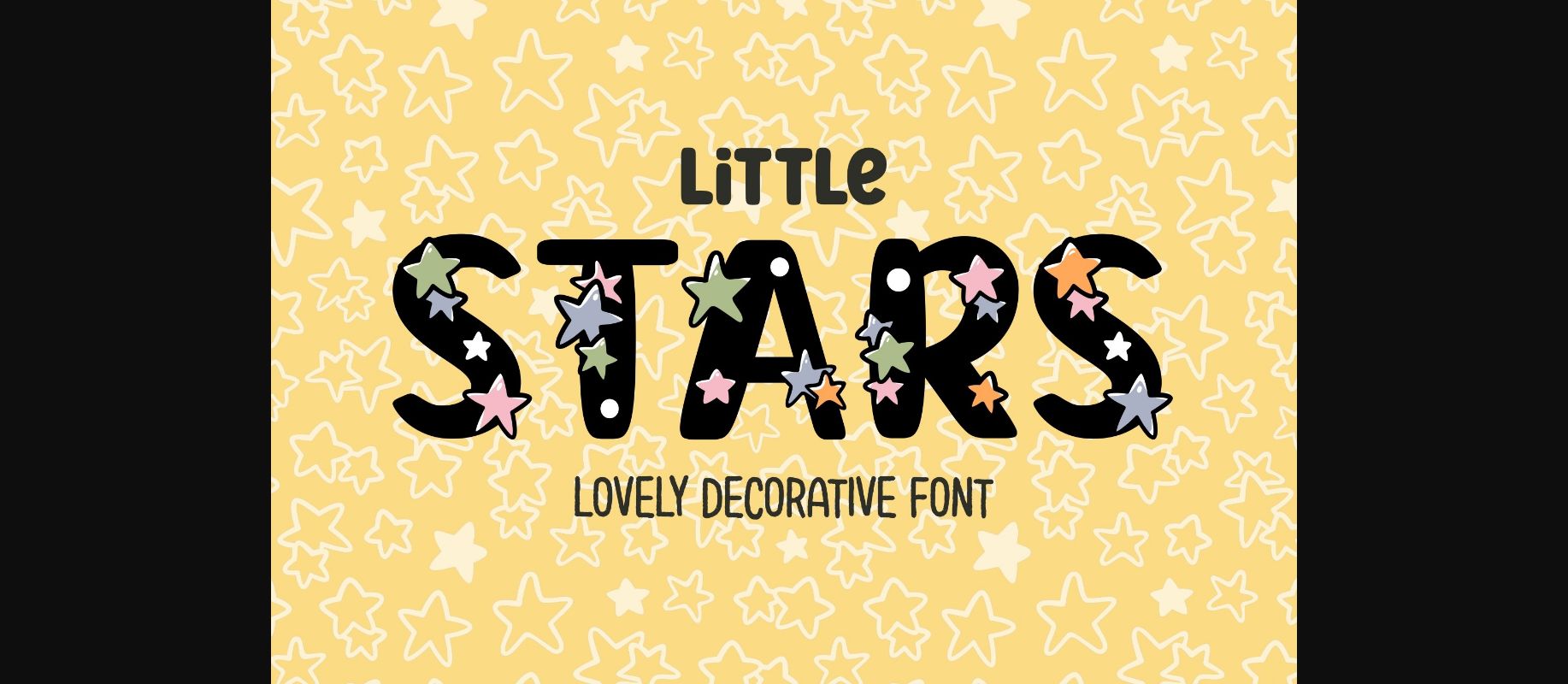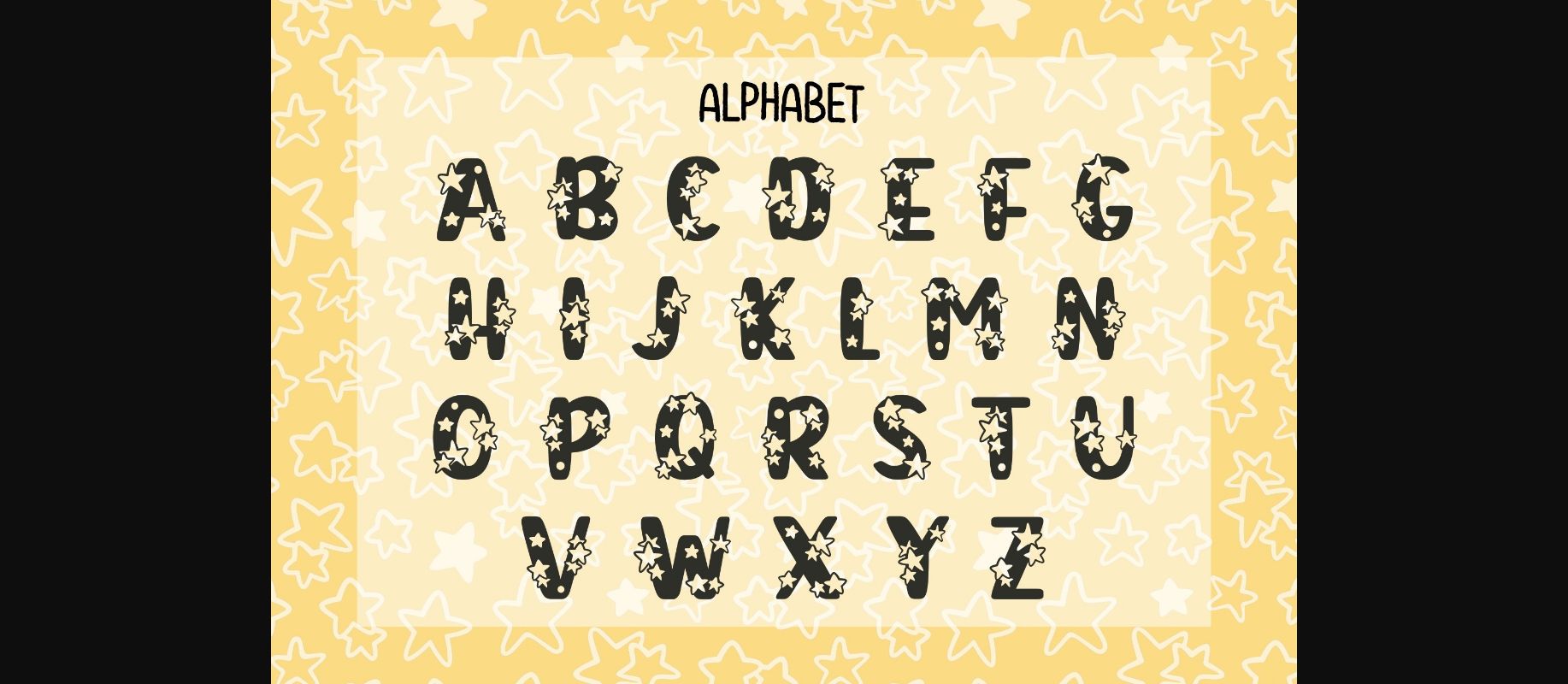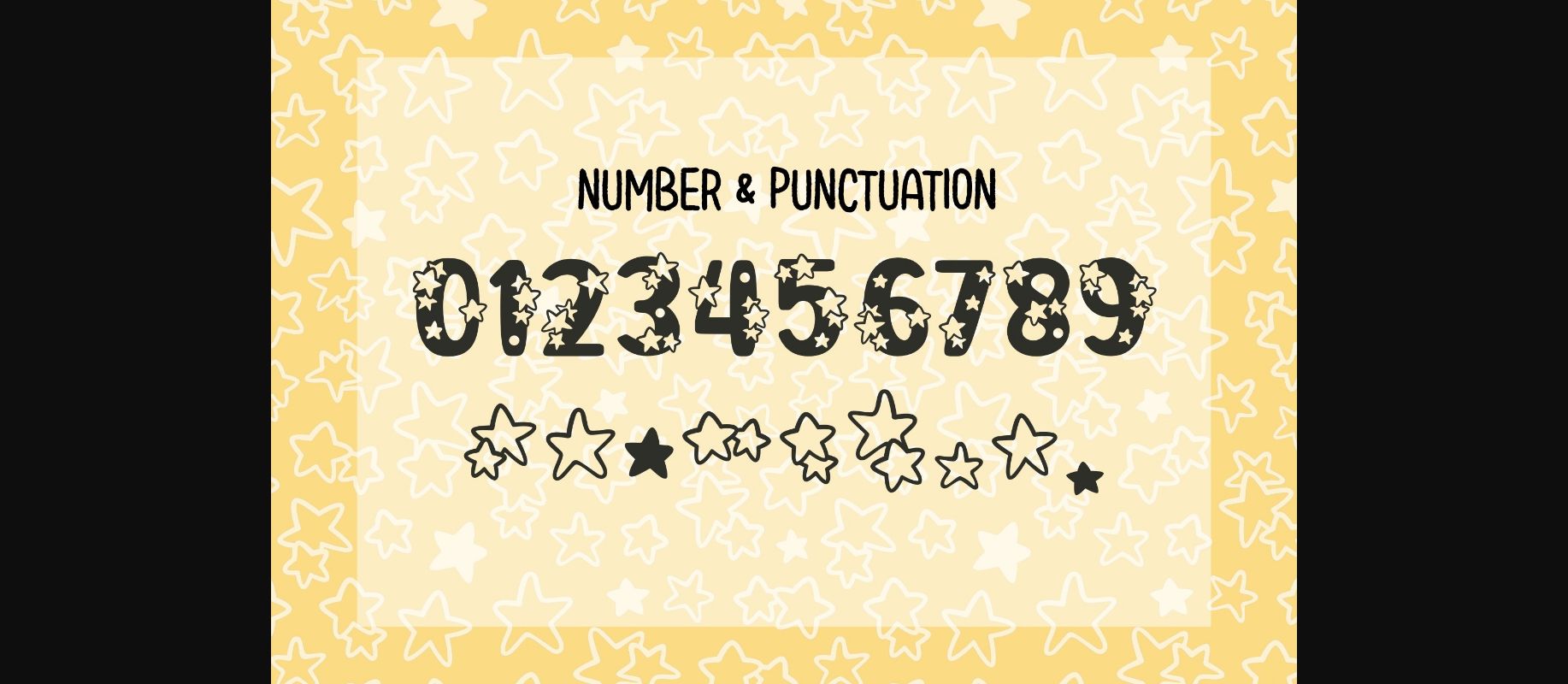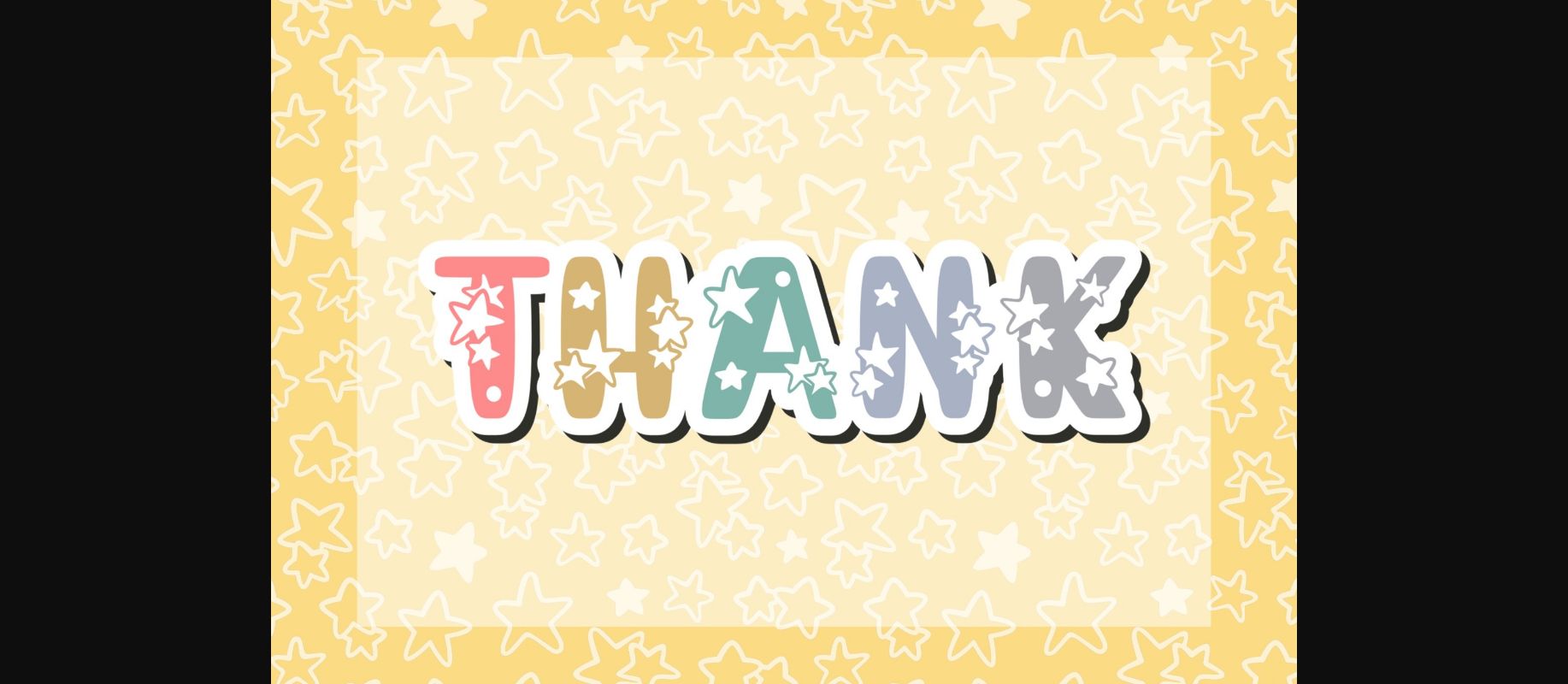
HomeDecorative FontsLittle Stars Font Decorative Fonts Little Stars Font FacebookXPinterestWhatsApp 1 of 7 ... Little Stars Font Poster 2... Little Stars Font Poster 3... Little Stars Font Poster 4... Little Stars Font Poster 5... Little Stars Font Poster 6... Little Stars Font Poster 7... About Little Stars Font Little Stars is a lovely decorative font. This font is the perfect fit for all of your logos, branding, social media, crafty DIY projects, and much more! DOWNLOAD NOW People also explored Handwriting Font Lovely Sunday Font Rochefort Duo Font Benjamin Font Sweet Smile Font Easter Font Happy Doggies Font Miss Katherine Font Mourning Font 392 0 TagsLittle Stars Font Previous articleWakqr FontNext articleFrench Riviera Font LEAVE A REPLY Cancel reply Comment: Please enter your comment! Name:* Please enter your name here Email:* You have entered an incorrect email address! Please enter your email address here Website: Save my name, email, and website in this browser for the next time I comment. Personal Use Free Engine Personal Use Free Read more about this font Valentine Chips Personal Use Free Read more about this font Gupis Personal Use Free Read more about this font Awesome Snowflakes Font Personal Use Free Read more about this font BLOG Free Fonts Risk: Why Free Fonts Can Be Dangerous for Designers Free Fonts Risk: Why Free Fonts Can Be Dangerous for Designers Using free fonts is a common practice in web and graphic design. However, the... Exploring Font Trends The 10 Best Handwriting Fonts to Add Personality to Your Designs Where to Buy American Fonts Online in 2024